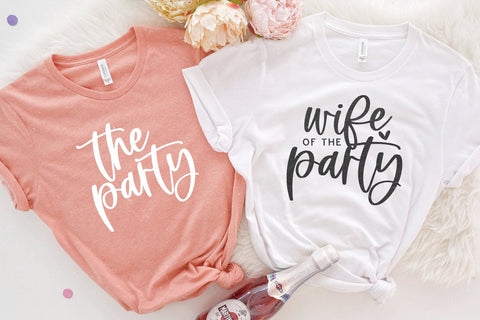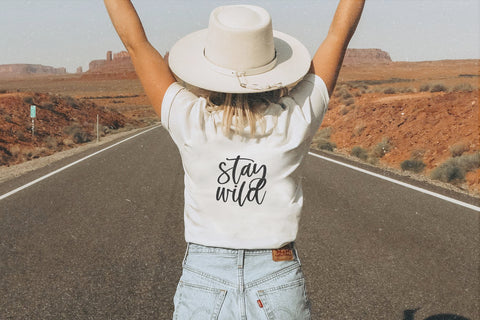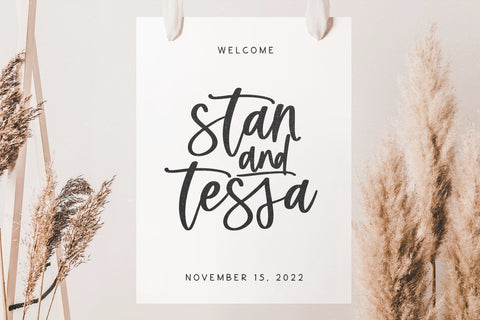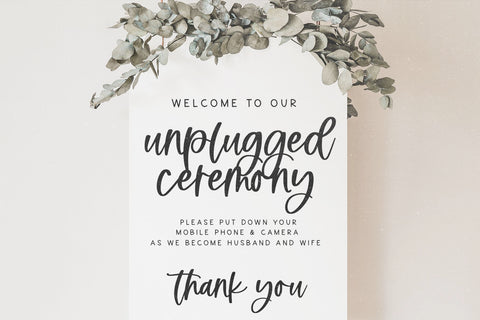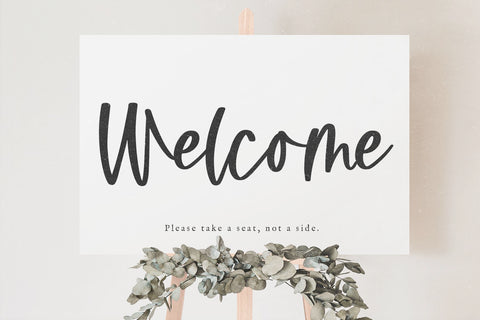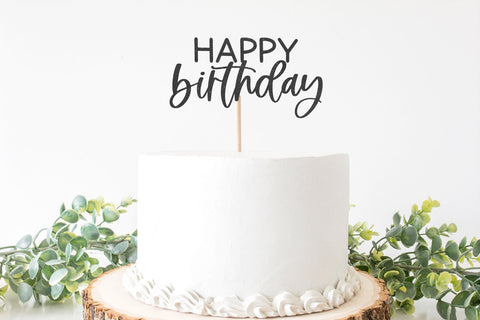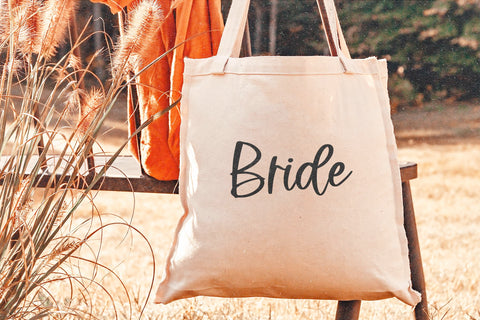
Westover - Modern Script Font
Westover is a modern handwritten script font.
This font is perfect for wedding decor, invitations, shirts, svg designs, cricut projects, branding and more!